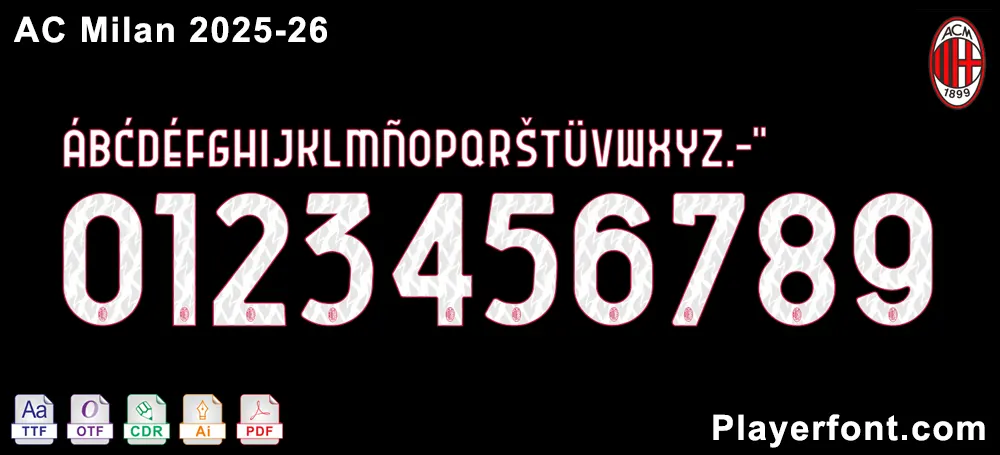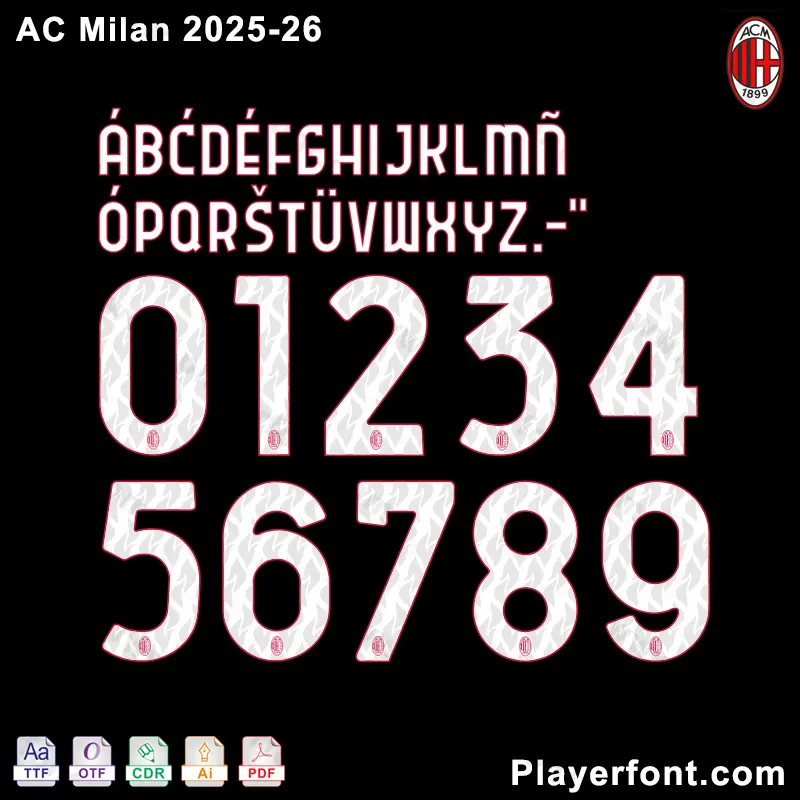
Officially-Inspired AC Milan 2025-26 Font Download
Show your Rossoneri pride with this professionally designed AC Milan 2025-2026 font package. This digital download perfectly replicates the official jersey numbering and lettering style used by the club in the 2025-26 season.
✅ Official Style – Matches AC Milan 2025-26 branding.